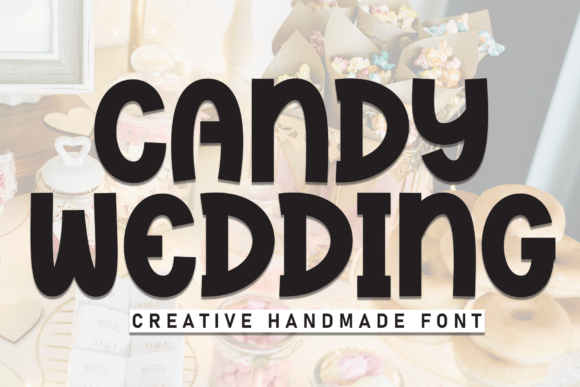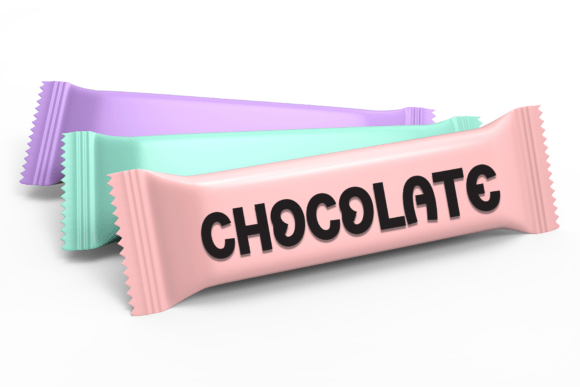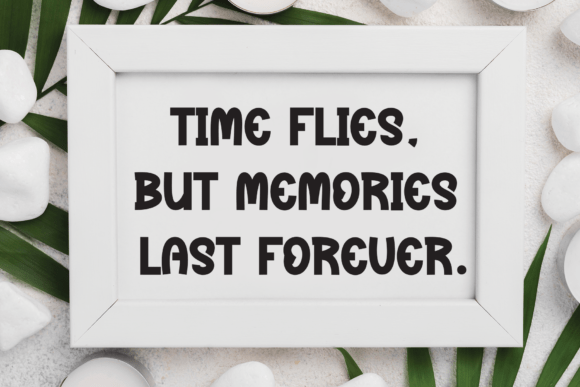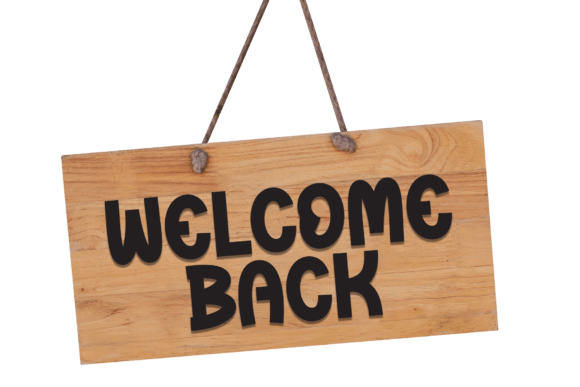
Candy Wedding Font
About the Candy Wedding Font
Introducing the Candy Wedding Font, a beautifully crafted typeface designed to elevate your creative projects. Candy Wedding is a casual and neat display font that radiates a fresh, friendly vibe. With clean lines and a relaxed structure, it’s perfect for packaging, posters, and social media graphics. The approachable design adds charm and clarity to projects while maintaining a polished appearance.
Candy Wedding’s friendly personality makes it ideal for projects needing a touch of sweetness and approachability—think wedding invitations, bakery logos, or children’s book covers. It excels in headlines, short text blocks, and even playful social media posts. However, its casual nature makes it less suitable for large bodies of text or UI elements where legibility is paramount.
Pairing Candy Wedding with a clean sans-serif like Lato or Open Sans provides a strong contrast, balancing its playful curves. For a more sophisticated feel, consider a classic serif like Garamond or a slightly more modern serif such as Playfair Display. These pairings enhance readability while maintaining a cohesive brand identity.
The font’s overall mood is light-hearted and optimistic, making it unsuitable for projects requiring a serious or formal tone. Its inherent charm and legibility at larger sizes make it particularly effective for creating a memorable visual impact.